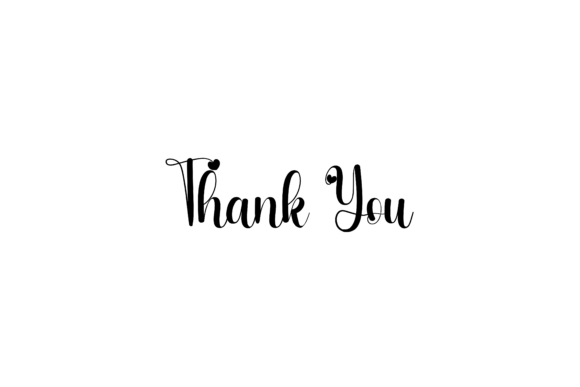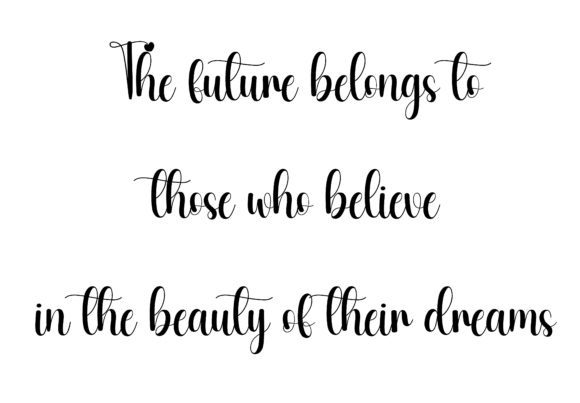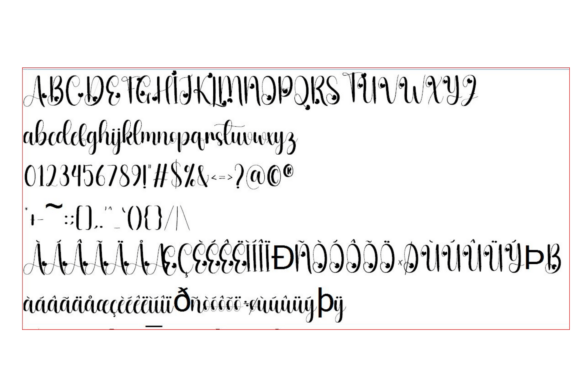
Discover the Timeless Elegance of Grandma Font: Elevate Your Designs with Sophistication
Welcome to the extraordinary world of “Grandma,” a gracefully sleek script font that radiates a captivating charm. With its superb refinement, Grandma can transform your nuptial announcements into enduring keepsakes, add a subtle touch of elegance to your paper crafts, and infuse bewitching gloss into your digital content. In this article, we’ll delve into the remarkable versatility of the Grandma font, perfectly poised to shape designs into lasting impressions.
The Essence of Grandma Font
Grandma font embodies a distinct essence, subtly elevating your designs to the realm of visual lyricism. Its gracefully sleek script strokes exude a sense of refinement and poise, making it an ideal choice for designers and crafters seeking to add a touch of sophistication to their work. Whether you’re creating wedding invitations, paper crafts, or digital content, Grandma font is sure to leave a lasting impression.
Perfect for Nuptial Announcements
When it comes to creating wedding invitations, couples want to make a statement. Grandma font is the perfect choice for nuptial announcements, as it adds a touch of elegance and romance to the design. Its superb refinement ensures that your wedding invitations will stand out from the rest, making them truly unforgettable. Imagine setting the tone for your special day with a beautifully crafted invitation that features the Grandma font – it’s sure to leave a lasting impression on your guests.
Elevate Your Paper Crafts with Grandma Font
Paper crafters, rejoice! Grandma font is a game-changer for your craft projects. Whether you’re creating greeting cards, scrapbook pages, or journal entries, this font adds a subtle touch of elegance that will take your designs to the next level. Its versatility ensures that it pairs well with a variety of colors, textures, and patterns, making it easy to incorporate into your existing design style.
Bringing Digital Content to Life
In the digital realm, Grandma font can infuse bewitching gloss into your content. Whether you’re designing social media graphics, blog posts, or website headers, this font is sure to capture the attention of your audience. Its sleek script strokes and refined lines ensure that your digital content stands out from the crowd, making it perfect for designers and marketers seeking to elevate their brand’s visual identity.
The Versatility of Grandma Font
One of the most significant advantages of Grandma font is its versatility. It can be used in a variety of design contexts, from formal to informal, and still manage to convey a sense of sophistication and elegance. Whether you’re a designer, crafter, or DIY enthusiast, Grandma font is an excellent addition to your font library.
Tips for Using Grandma Font
To get the most out of Grandma font, here are a few tips to keep in mind:
- Pair Grandma font with complementary fonts to create visual interest and hierarchy.
- Experiment with different colors and textures to add depth and dimension to your designs.
- Use Grandma font to create headings, titles, and other design elements that require a touch of elegance.
- Don’t be afraid to get creative and try out new and innovative ways to use Grandma font in your designs.
In conclusion, Grandma font is a timeless and elegant script font that can elevate your designs to new heights. Its superb refinement, versatility, and captivating charm make it an excellent choice for designers, crafters, and DIY enthusiasts seeking to add a touch of sophistication to their work. Whether you’re creating wedding invitations, paper crafts, or digital content, Grandma font is sure to leave a lasting impression. So why wait? Discover the extraordinary world of Grandma font today and transform your designs into lasting impressions.